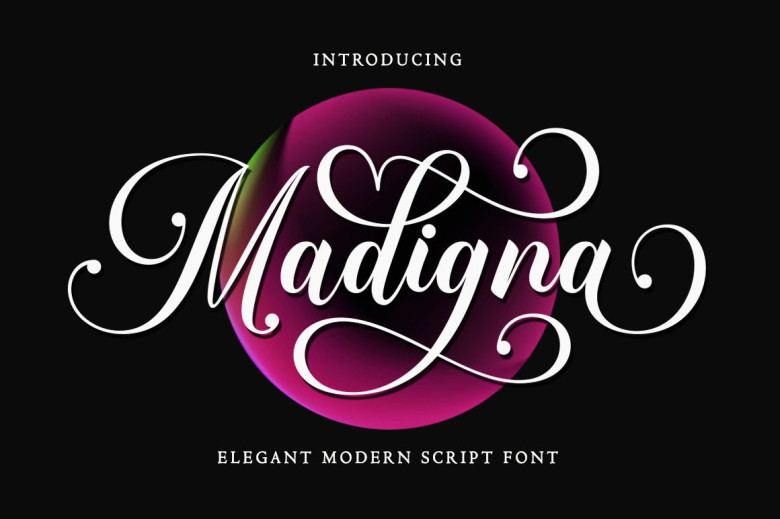
Madigna Font
Madigna feels equally charming and elegant. It looks stunning on wedding invitations, thank you cards, quotes, greeting cards, logos, business cards, and every other design which needs a handwritten touch. It is also PUA encoded which means you can access all of the glyphs and swashes with ease!
Madigna Calligraphy Font